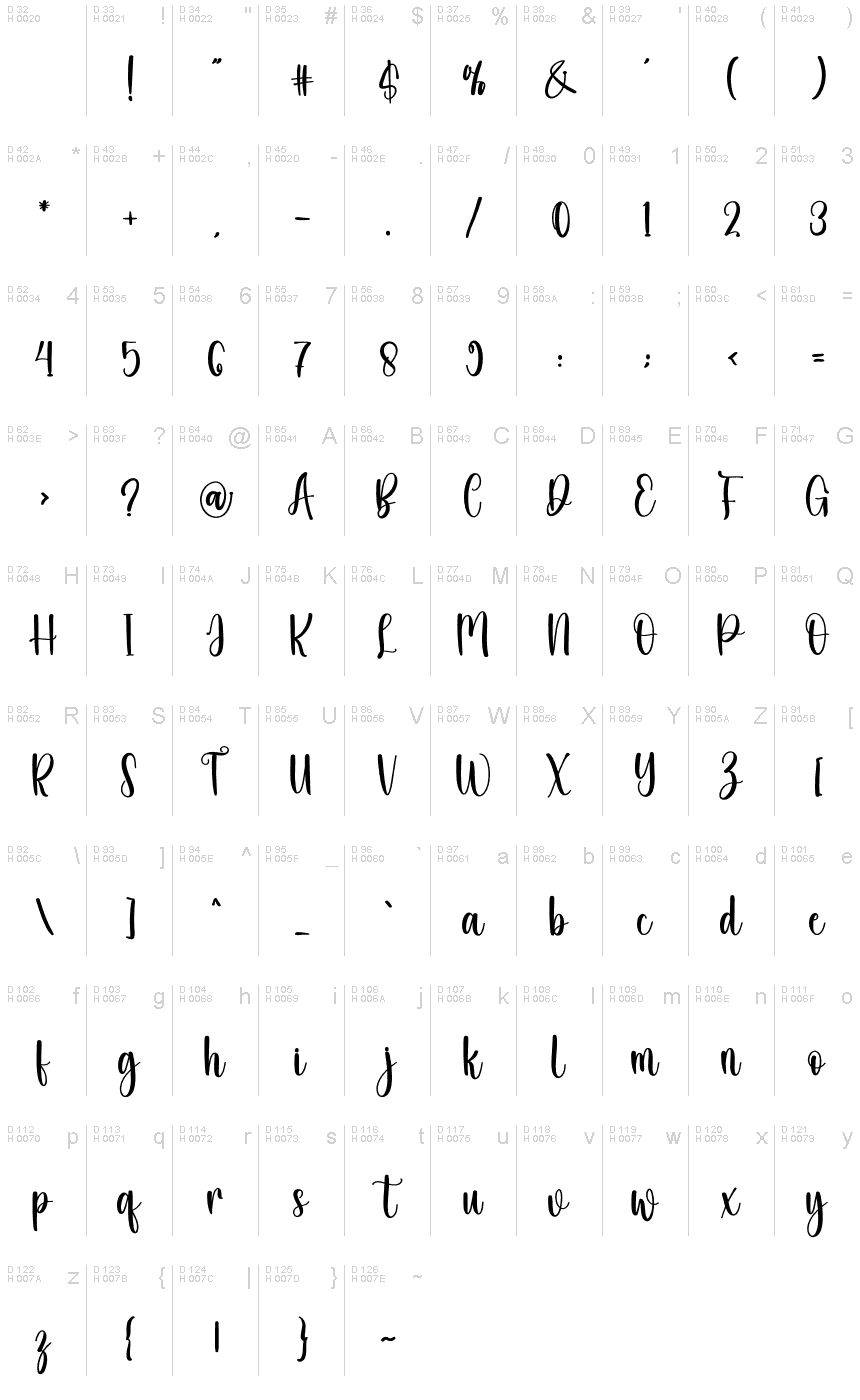
Amsterdam
This font retains a classy calligraphic influence while feeling contemporary and fresh. This versatility will attract a wide range of creative ideas, from letterheads and titles to stationery.